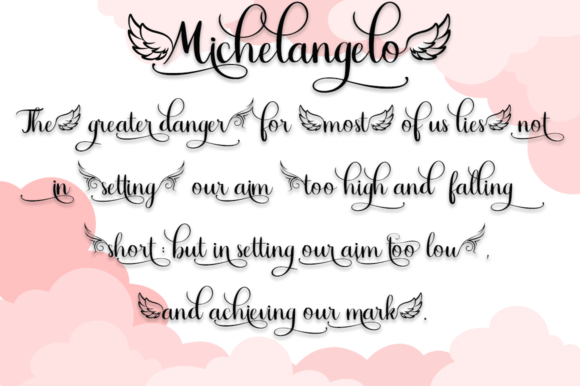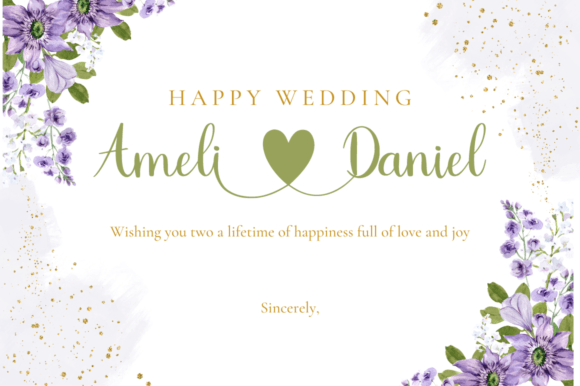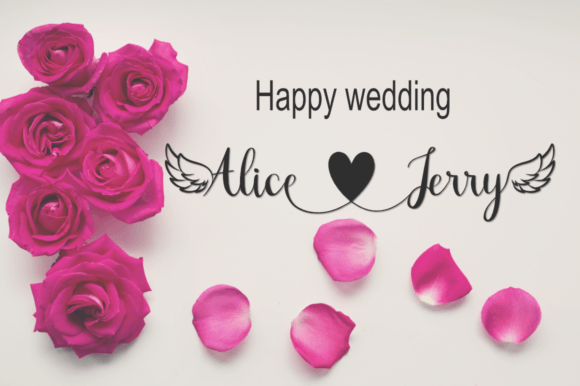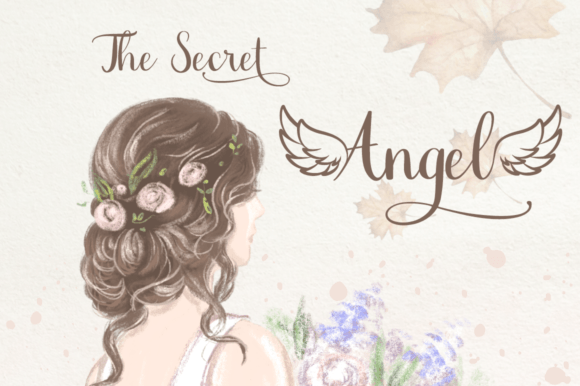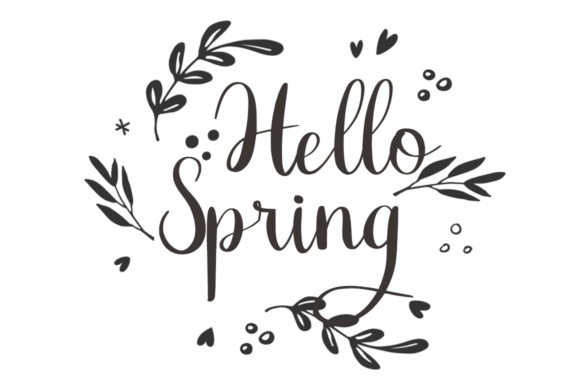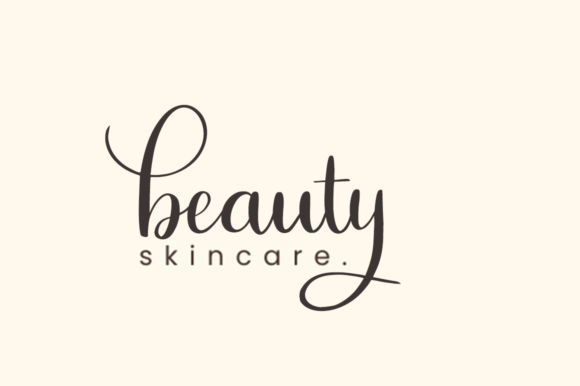
The Magic of Angel Font: Bringing Whimsy to Your Designs
As a designer, have you ever found yourself staring at a blank page, searching for the perfect font to bring your creative vision to life? It’s a moment we’ve all been in – the spark of inspiration that sets our imagination ablaze, and the thrill of seeing our ideas take shape. For many of us, it’s the little details that make all the difference. That’s where Angel Font comes in – a modern calligraphy font that adds a touch of whimsy and elegance to any design.
With its beautiful swashes and casual flair, Angel Font is the perfect addition to any project, from logos and product packaging to wedding invitations and branding. And with its PUA encoding, accessing all the glyphs and swashes is a breeze – making it a valuable tool for designers looking to add a little magic to their work.
Angel Font Key Features
- Unique Characteristics: Angel Font features a unique, hand-drawn design with intricate details and flourishes, giving it a distinctive and elegant look.
Designer Review: Angel Font
✨ The Angel Font has a unique and elegant design that makes it perfect for creating a sense of serenity and peace in any project. The font’s subtle curves and delicate lines give it a touch of sophistication, making it suitable for luxury brands and high-end designs.
✨ The font is highly legible, even at small font sizes, which is a significant advantage for digital designs. The Angel Font is also versatile and can be used in a variety of contexts, from headings to body text, making it a great addition to any designer’s toolkit.
Limits and Challenges
⚠️ One of the major limitations of the Angel Font is its lack of bold weights. While the font is beautiful in its own right, it can sometimes feel too delicate and lacking in impact. This can make it challenging to use in situations where a bold, attention-grabbing font is needed.
⚠️ Another limitation is the font’s limited language support. While it includes support for English and several European languages, it may not be suitable for projects that require support for more languages.
The Angel Font is a beautiful and elegant font that excels in situations where subtlety and sophistication are required. While it has some limitations, its unique design and high legibility make it a great addition to any designer’s toolkit. I would highly recommend the Angel Font for luxury brands, high-end designs, and situations where a delicate, elegant font is needed.
Recommendations
- Use the Angel Font for luxury brands, high-end designs, and situations where subtlety and sophistication are required.
- Avoid using the Angel Font in situations where a bold, attention-grabbing font is needed.
- Consider combining the Angel Font with other fonts to create a more balanced and versatile design.
Tips for Getting the Most Out of Angel Font
For best results, use Angel Font in conjunction with light backgrounds and soft colors. This will help the delicate lines and details of the font shine through.
Angel Font is ideal for use in wedding invitations, baby shower invitations, and other special occasion designs. It’s also suitable for use in watercolor-style artwork and illustrations.